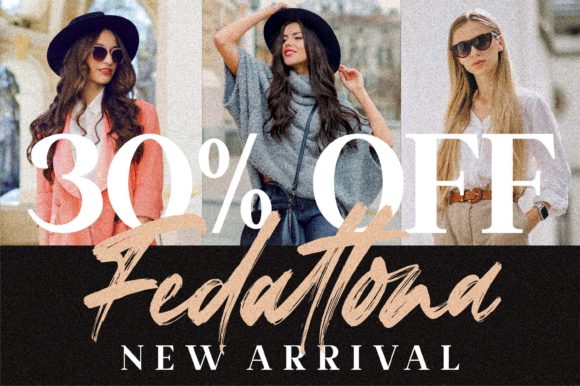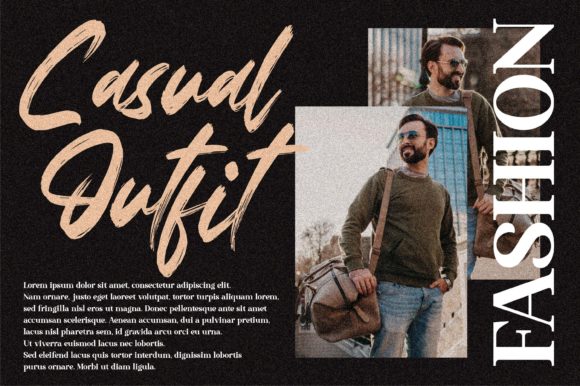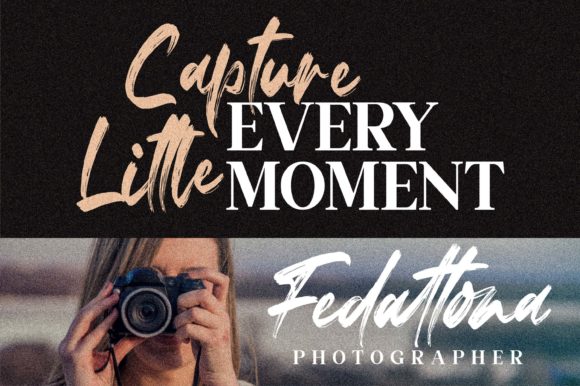
The Perfect Blend of Style and Function
Have you ever been working on a design project, pouring your heart and soul into it, and then suddenly, the perfect font pops up in front of you? That’s exactly what happened to me when I stumbled upon the Fedattona Font. It was love at first sight – the way its rough, textured design added a touch of uniqueness to my project, bringing it to life in a way I never thought possible.
The Fedattona Font is a trendy brushed display font that’s designed to make a statement. With its cool, edgy vibe, it’s the perfect addition to any design project looking to stand out from the crowd. Whether you’re a seasoned designer or just starting out, this font is a valuable asset to have in your toolkit, offering endless possibilities for creativity and self-expression.
Fedattona Font Key Features
- Character Count: The font contains over 1,200 characters, including Latin, Cyrillic, and Greek alphabets, as well as a range of punctuation and symbols.
- Unique Characteristics: Fedattona Font features a distinctive, hand-drawn aesthetic with intricate details and subtle texture, making it ideal for use in creative and artistic applications.
- Font Style: Fedattona Font is a script font, with a flowing, cursive design that is suitable for use in titles, headings, and other display typography.
- Language Support: Fedattona Font includes support for multiple languages, including English, Spanish, French, German, Italian, and many others.
Fedattona Font Review
I’ve had the chance to work with the Fedattona Font, and I must say it’s an interesting typeface. Here are my thoughts on what works well and what doesn’t.
- Unique aesthetic: The Fedattona Font has a distinctive look that can add character to your designs.
- Legibility: The font is generally easy to read, even at smaller font sizes.
- Customizability: The font comes with a range of weights and styles, giving you flexibility in your design choices.
- Limited language support: The Fedattona Font may not support all languages, which can be a limitation for global designs.
- No bold or italic variants: While the font has a range of weights, it lacks bold and italic variants, which can limit its use in certain situations.
- Not suitable for small text: The font’s unique aesthetic can make small text difficult to read, so it’s best used for larger font sizes.
The Fedattona Font is a quirky and visually interesting typeface that can add a touch of personality to your designs. While it has some limitations, it’s a great choice for projects where you want to add a bit of flair. Just be mindful of its limitations and use it judiciously.
For best results, use Fedattona Font in headings and titles to create a strong visual impact.
Use Fedattona Font to create a consistent look and feel across your design elements.
Use Fedattona Font to add a touch of sophistication to your presentations and documents.
Fedattona Font is ideal for:
- Business presentations and reports
- Editorial and publishing content
- Personal branding and stationery
Alternatives to Fedattona Font
Great Vibes is a modern, handwritten font that can be used for titles and headings. It is perfect for adding a touch of elegance and sophistication to your designs. When to use: Great Vibes is ideal for creative and artistic projects, such as invitation cards, posters, and social media graphics.
Comparison: Great Vibes is more elegant and refined compared to Fedattona Font, which has a more casual and playful feel.
2. Dancing Script
Dancing Script is a beautiful, cursive font that can be used for titles and headings. It is perfect for adding a touch of whimsy and romance to your designs. When to use: Dancing Script is ideal for creative and artistic projects, such as wedding invitations, baby shower invitations, and greeting cards.
Comparison: Dancing Script is more elegant and refined compared to Fedattona Font, which has a more casual and playful feel.
Lobster is a fun, handwritten font that can be used for titles and headings. It is perfect for adding a touch of playfulness and humor to your designs. When to use: Lobster is ideal for creative and artistic projects, such as social media graphics, posters, and advertising materials.